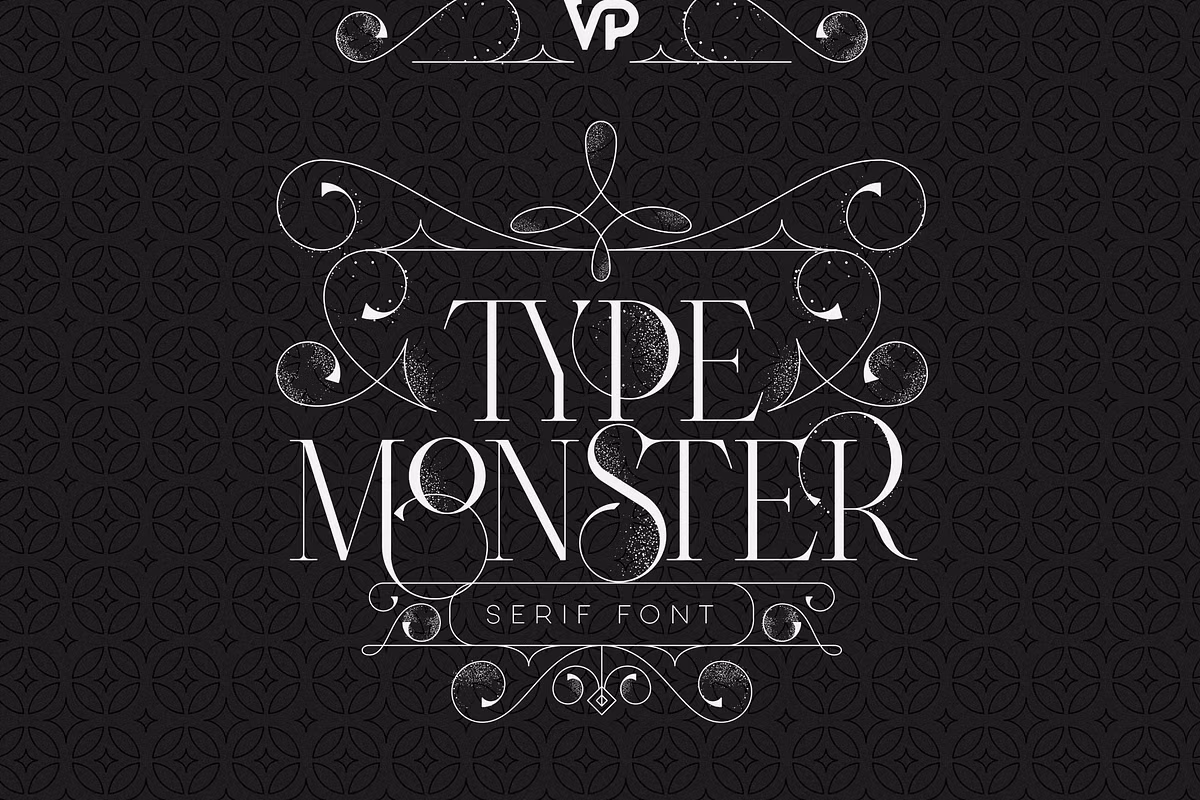
The Type Monster - Elegant Font + Extras Free Download is a luxurious and versatile typeface designed to add sophistication and style to your designs. With its sleek, modern letterforms and a variety of elegant extras, this font is perfect for creating high-end branding, stunning logos, invitations, and editorial designs. The Type Monster font offers a bold yet refined look, ideal for both professional and creative projects. Additionally, the included extras allow you to enhance your designs with unique decorative elements, giving your typography an extra flair. Please note, for commercial use, a license purchase is required. However, you can easily download the Type Monster - Elegant Font + Extras Free Download for free for personal use and explore its full potential. Download the Type Monster - Elegant Font + Extras Free Download today and elevate your creative projects with this stylish and elegant font.